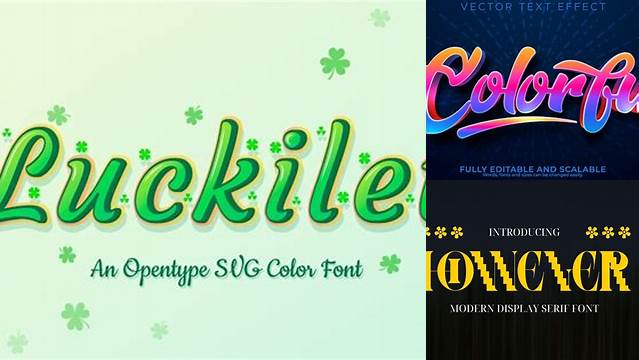
Download Free Fonts: Your Guide To Freepik Fonts
Looking to spice up your designs with some awesome fonts without breaking the bank? You've come to the right place! In this comprehensive guide, we'll dive deep into the world of Freepik fonts free download. We'll explore everything from where to find them, how to use them, and even some tips and tricks for making the most of your font collection. So, grab a coffee, settle in, and let's get started!
1. Understanding Freepik's Font Offerings
Freepik is a fantastic resource for designers, offering a wide range of graphics, vectors, and, of course, fonts! When we talk about Freepik fonts free download, it's important to understand the different licenses they offer. Generally, you'll find both free and premium options. Free fonts often come with certain restrictions, such as requiring attribution to Freepik. Premium fonts, on the other hand, usually offer more flexibility and commercial usage rights. To make sure you're using the fonts correctly, always double-check the license agreement before incorporating them into your projects. Understanding these distinctions is the first step towards making the most of Freepik's font library. So, always read the fine print, guys! Knowing the difference between free and premium can save you a lot of headaches down the road, especially if you're using the fonts for commercial projects. Happy designing!
2. How to Find Free Fonts on Freepik
Navigating the Freepik website to find those hidden gems of Freepik fonts free download can be a bit of an adventure! The easiest way to start is by using the search bar. Type in "free fonts" or specific font styles you're looking for, like "sans-serif free fonts" or "script free fonts." Once you've hit enter, you'll likely see a mix of free and premium results. To filter specifically for free options, look for a filter option, usually on the left-hand side of the page, that allows you to select "free" resources. This will narrow down your search and show you only the fonts available for free download. Also, keep an eye out for fonts that are part of Freepik's free bundles or promotions, as these can offer even more value. Don't forget to browse through different categories and tags, too! You might stumble upon some unexpected treasures that perfectly match your project. Remember to always check the license details before downloading to ensure it meets your needs. Finding the perfect Freepik fonts free download can take some time, but it's well worth the effort when you discover that ideal typeface that brings your design to life.
3. Types of Free Fonts Available on Freepik
When exploring Freepik fonts free download, you'll find a delightful assortment of font types to suit various design needs. From classic serif fonts that exude elegance and professionalism to modern sans-serif fonts that offer clean lines and readability, there's something for every project. Script fonts, with their flowing curves and handwritten feel, add a touch of personality and charm, perfect for invitations and branding. Display fonts, bold and eye-catching, are ideal for headlines and posters, grabbing attention with their unique designs. Geometric fonts, with their precise shapes and minimalist aesthetic, are great for creating a contemporary and structured look. Each font type brings its own distinct character and can significantly impact the overall message of your design. So, whether you're working on a website, logo, or marketing material, take the time to explore the diverse range of font types available on Freepik to find the perfect match for your creative vision. Remember, the right font can elevate your design from good to great!
7. Troubleshooting Font Installation Issues
Sometimes, even with the simplest processes, things can go a little wonky. If you're having trouble installing those Freepik fonts free download, don't panic! Let's troubleshoot some common issues. First, make sure the font file isn't corrupted. Try downloading it again from Freepik to ensure you have a complete file. If the font still won't install, try restarting your computer. This can often resolve minor glitches that might be preventing the installation. Another common problem is font cache issues. Your operating system stores font information in a cache, and sometimes this cache can become corrupted, leading to installation problems. On Windows, you can try clearing the font cache by deleting the contents of the C:\Windows\ServiceProfiles\LocalService\AppData\Local\FontCache folder (you might need to show hidden files and folders to access this). On macOS, you can use Font Book to resolve font conflicts and clear the font cache. Open Font Book, select "File" > "Restore Standard Fonts," and then restart your computer. If you're still having trouble, try installing the font using a different method. For example, on Windows, you can drag and drop the font file into the C:\Windows\Fonts folder. If all else fails, consult the font's documentation or contact Freepik's support team for assistance. Don't let a little technical hiccup stop you from enjoying your new fonts!
8. Best Practices for Using Freepik Fonts
So you've got your Freepik fonts free download all installed and ready to go. Awesome! But before you start slapping them on every design, let's chat about some best practices for using fonts effectively. First and foremost, readability is key. Choose fonts that are easy to read, especially for body text. Avoid overly decorative or complex fonts for large blocks of text, as they can strain the eyes. Consider the hierarchy of your text. Use different font sizes, weights, and styles to create a clear visual hierarchy that guides the reader through your content. Pair fonts carefully. Choose fonts that complement each other and create a harmonious visual balance. A good rule of thumb is to pair a serif font with a sans-serif font. Use fonts sparingly. Too many different fonts in a single design can look chaotic and unprofessional. Stick to a maximum of two or three fonts per project. Pay attention to kerning and tracking. Kerning is the spacing between individual letters, while tracking is the overall spacing between all the letters in a word or phrase. Adjust these settings to improve the readability and visual appeal of your text. Finally, always test your fonts on different devices and screen sizes to ensure they look good in all contexts. Following these best practices will help you create visually appealing and effective designs with your Freepik fonts.
9. Combining Freepik Fonts with Other Design Elements
Okay, you've got your Freepik fonts free download all set, and you're ready to rock. But how do you make sure those fonts play nicely with the other elements in your design? Well, let's dive into the art of combining fonts with other design elements! Think of your fonts as just one piece of the puzzle. They need to work in harmony with your colors, images, and overall layout to create a cohesive and visually appealing design. When choosing fonts, consider the mood and tone of your design. A playful design might call for a fun, quirky font, while a professional design might require a more clean and classic typeface. Pay attention to the contrast between your fonts and your background. Make sure your text is easily readable against the background color or image. Use color to highlight important text or create visual interest. Experiment with different color combinations to see what works best with your fonts. When incorporating images, choose fonts that complement the style and subject matter of the images. A vintage-inspired design might pair well with a retro-style font, while a modern design might call for a sleek, sans-serif font. Don't be afraid to experiment and try new things! The key is to find a balance between your fonts and other design elements that creates a visually pleasing and effective design. So, go ahead and unleash your creativity!
10. Free Font Alternatives to Freepik
While Freepik fonts free download are a great resource, it's always good to have options! So, let's explore some fantastic free font alternatives to Freepik. Google Fonts is a treasure trove of open-source fonts that are free for both personal and commercial use. With a vast library of fonts in various styles, Google Fonts is a go-to resource for designers. Font Squirrel is another excellent option, offering a curated collection of high-quality free fonts. Font Squirrel carefully vets each font to ensure its quality and usability. DaFont is a popular website with a massive collection of user-submitted fonts. While the quality of fonts on DaFont can vary, it's a great place to find unique and unusual typefaces. Behance and Dribbble are design communities where designers often share free fonts as part of their projects. Keep an eye out for these freebies, as they can be real gems. Creative Market offers a selection of free goods every week, including fonts. Sign up for their newsletter to stay updated on the latest freebies. Exploring these free font alternatives will give you even more options for enhancing your designs without breaking the bank. So, go ahead and expand your font library!
11. Serif Fonts on Freepik: Classic Choices
When you're browsing for Freepik fonts free download, don't overlook the timeless elegance of serif fonts. These fonts, characterized by their small decorative strokes (serifs) at the end of each letter, bring a touch of tradition and sophistication to any design. Think of classic book layouts or the logos of established brands – chances are, they're using a serif font. On Freepik, you'll find a variety of serif fonts to choose from, ranging from the traditional Times New Roman-esque styles to more modern and stylized options. Use them for headlines to command attention, or in body text to lend a sense of readability and trustworthiness. Some popular serif fonts include Garamond, with its graceful curves, and Didot, known for its high contrast and refined appearance. When pairing serif fonts with other fonts, consider using a sans-serif font for headings to create a visual contrast. Experiment with different font weights and sizes to create a clear visual hierarchy. Whether you're designing a book cover, a website, or a logo, serif fonts can add a touch of class and professionalism to your project.
12. Sans-Serif Fonts on Freepik: Modern and Clean
If you're after a more contemporary look, Freepik fonts free download also include a wide array of sans-serif fonts. These fonts, as the name suggests, lack the decorative serifs found on serif fonts, giving them a cleaner, more minimalist appearance. Sans-serif fonts are often associated with modernity, simplicity, and readability, making them a popular choice for website design, logos, and branding. On Freepik, you'll find sans-serif fonts in various styles, from the classic Helvetica and Arial to more modern and geometric options like Futura and Montserrat. Use sans-serif fonts for body text to ensure readability, or in headings to create a bold and impactful statement. When pairing sans-serif fonts with other fonts, consider using a serif font for body text to create a visual contrast. Experiment with different font weights and sizes to create a clear visual hierarchy. Whether you're designing a website, a logo, or a marketing campaign, sans-serif fonts can bring a sense of modernity and clarity to your project.
13. Script Fonts on Freepik: Elegant and Decorative
Looking to add a touch of personality and flair to your designs? Then you'll want to explore the script fonts available as Freepik fonts free download. These fonts mimic the flowing strokes of handwriting, bringing an elegant and decorative touch to any project. Script fonts are perfect for invitations, logos, and branding, adding a personal and intimate feel. On Freepik, you'll find a variety of script fonts to choose from, ranging from formal calligraphy styles to more casual and whimsical options. Use script fonts sparingly, as they can be difficult to read in large blocks of text. Instead, use them for headings, logos, or short phrases to add a touch of elegance and sophistication. When pairing script fonts with other fonts, consider using a simple sans-serif font for body text to create a visual contrast. Experiment with different colors and textures to enhance the handwritten feel of the font. Whether you're designing a wedding invitation, a logo for a boutique, or a social media graphic, script fonts can add a touch of charm and personality to your project.
14. Display Fonts on Freepik: Bold and Eye-Catching
Need to grab attention with your designs? Look no further than the display fonts available as Freepik fonts free download. These fonts are designed to be bold, eye-catching, and attention-grabbing, making them perfect for headlines, posters, and advertising. Display fonts often feature unique and unconventional designs, adding a touch of personality and creativity to your project. On Freepik, you'll find a wide variety of display fonts to choose from, ranging from vintage-inspired styles to futuristic and geometric options. Use display fonts sparingly, as they can be overwhelming in large blocks of text. Instead, use them for headings, logos, or short phrases to make a statement. When pairing display fonts with other fonts, consider using a simple sans-serif font for body text to create a visual contrast. Experiment with different colors and textures to enhance the impact of the font. Whether you're designing a movie poster, a website header, or a social media ad, display fonts can help you capture attention and make a lasting impression.
15. Geometric Fonts on Freepik: Modern and Structured
For a sleek, modern, and structured look, explore the geometric fonts available as Freepik fonts free download. These fonts are characterized by their precise shapes, clean lines, and minimalist aesthetic, making them ideal for contemporary designs. Geometric fonts are often associated with technology, innovation, and efficiency, making them a popular choice for startups, tech companies, and modern brands. On Freepik, you'll find a variety of geometric fonts to choose from, ranging from the classic Futura to more modern options like Montserrat and Avenir. Use geometric fonts for body text to ensure readability, or in headings to create a bold and impactful statement. When pairing geometric fonts with other fonts, consider using a serif font for body text to create a visual contrast. Experiment with different font weights and sizes to create a clear visual hierarchy. Whether you're designing a website, a logo, or a marketing campaign, geometric fonts can bring a sense of modernity and structure to your project.
16. Font Pairing Tips for Freepik Fonts
Mastering the art of font pairing can elevate your designs from good to great. When using Freepik fonts free download, here are some tips to help you create visually harmonious and effective designs. Start by understanding the basic principles of font pairing. A classic approach is to pair a serif font with a sans-serif font. This creates a visual contrast that is pleasing to the eye and helps to establish a clear hierarchy. Consider the mood and tone of your design. A playful design might call for a fun, quirky font paired with a simple sans-serif font, while a professional design might require a more classic serif font paired with a clean sans-serif font. Use font weights and sizes to create a visual hierarchy. Make your headings larger and bolder than your body text to draw attention to the most important information. Don't be afraid to experiment, but stick to a maximum of two or three fonts per project. Too many different fonts can make your design look chaotic and unprofessional. Use online font pairing tools and resources to get inspiration and ideas. These tools can help you discover font combinations that you might not have considered otherwise. Finally, always test your font pairings on different devices and screen sizes to ensure they look good in all contexts. By following these tips, you can create visually appealing and effective designs with your Freepik fonts.
17. Creating a Font Library with Freepik Downloads
Building a solid font library is essential for any designer. With Freepik fonts free download, you can easily create a diverse and valuable collection of typefaces to use in your projects. Start by browsing Freepik's extensive font selection and downloading the fonts that catch your eye. Organize your fonts into folders based on style, type, or project. This will make it easier to find the right font when you need it. Use a font management tool to preview and manage your fonts. These tools allow you to easily activate and deactivate fonts, view font samples, and organize your fonts into collections. Consider creating a font style guide for your brand or business. This will help you maintain consistency in your designs and ensure that you're using fonts that align with your brand identity. Regularly update your font library with new and interesting fonts. This will keep your designs fresh and modern and give you more options to choose from. Don't be afraid to experiment with different fonts and font combinations. The more you experiment, the better you'll become at choosing the right font for the right project. By following these tips, you can create a font library with Freepik downloads that will serve you well for years to come.
18. Using Freepik for Font Inspiration
Feeling stuck in a design rut? Freepik fonts free download can be a great source of inspiration for your next project. Browse Freepik's font selection to discover new and interesting typefaces that you might not have considered otherwise. Pay attention to the trends in font design. What fonts are popular right now? What fonts are being used in successful designs? Look at how other designers are using fonts in their projects. How are they pairing fonts? How are they using fonts to create visual hierarchy? Experiment with different font combinations and styles. Don't be afraid to try something new. Use online font pairing tools and resources to get inspiration and ideas. These tools can help you discover font combinations that you might not have considered otherwise. Create mood boards with fonts that you like. This can help you visualize how the fonts will look in your designs. Don't just look at the fonts themselves. Look at the overall design context in which the fonts are being used. How do the fonts work with the colors, images, and layout of the design? By following these tips, you can use Freepik to find font inspiration and take your designs to the next level.
19. Font Bundles on Freepik: Maximizing Value
Want to get the most bang for your buck? Check out the font bundles available on Freepik. These bundles offer a collection of related fonts at a discounted price, making them a great way to expand your font library without breaking the bank. Keep an eye out for Freepik fonts free download that are included in font bundles. This is a great way to get even more value for your money. Consider the theme or style of the font bundle. Does it align with your design needs? Does it include fonts that you'll actually use? Read the license agreements carefully before purchasing a font bundle. Make sure you understand the terms of use for each font in the bundle. Compare the price of the font bundle to the price of buying the fonts individually. Is it really a good deal? Check the reviews of the font bundle to see what other designers are saying about it. Are they happy with the quality of the fonts? Make sure the font bundle includes a variety of font weights and styles. This will give you more flexibility in your designs. By following these tips, you can maximize the value of font bundles on Freepik and expand your font library without spending a fortune.
20. Free Font Alternatives within Freepik
Did you know that even within Freepik, you can find alternatives for your font needs without necessarily downloading external fonts? One of the best ways is to utilize Freepik's design templates. Often, these templates include well-chosen font pairings that you can adapt for your own projects. Analyze the fonts used in these templates and search for similar Freepik fonts free download. This can lead you to discover new fonts that you might not have found otherwise. Also, explore Freepik's mockups. Mockups often showcase fonts in real-world scenarios, giving you a better idea of how they might look in your designs. Pay attention to the font styles used in Freepik's promotional materials. Freepik often highlights its best fonts in its ads and social media posts. Check out Freepik's blog for articles and tutorials on font design and typography. These resources can provide valuable insights and inspiration for your font choices. Use Freepik's search filters to narrow down your font search. You can filter by font type, style, and license. Don't be afraid to experiment with different font combinations and styles. The more you experiment, the better you'll become at choosing the right font for the right project. By exploring these free font alternatives within Freepik, you can save time and effort while still finding the perfect fonts for your designs.
21. Mobile Font Usage from Freepik
Designing on the go? You can even leverage Freepik fonts free download for your mobile projects! While you can't directly install fonts onto most mobile apps like you would on a desktop, there are still ways to incorporate Freepik's font styles into your mobile designs. First, design your text elements on your computer using your downloaded Freepik fonts. Then, export those text elements as images (PNG with transparency works great!) and import them into your mobile design app. Some advanced mobile design apps also allow you to import custom fonts, so be sure to check if your app supports this feature. Another option is to use web-based design tools that allow you to access your installed fonts from any device. Create your designs online and then download them for use on your mobile devices. When choosing fonts for mobile designs, consider readability on smaller screens. Simple, clean fonts often work best. Also, pay attention to font size and contrast to ensure your text is easily legible. Remember to optimize your images for mobile devices to reduce file size and improve loading times. By following these tips, you can effectively use Freepik fonts in your mobile designs, even without direct font installation.
22. Font Weight and Style Considerations
When working with Freepik fonts free download, it's crucial to pay attention to font weight and style. Font weight refers to the thickness of the font, ranging from thin to black. Font style refers to variations such as italic, bold, or condensed. Using different font weights and styles can help you create a visual hierarchy and emphasize important information in your designs. For example, you might use a bold font weight for headings to make them stand out from the body text. Or, you might use an italic font style to emphasize a particular word or phrase. When choosing font weights and styles, consider the overall tone and style of your design. A professional design might call for more subtle font weights and styles, while a playful design might benefit from bolder and more dramatic choices. Be consistent with your use of font weights and styles throughout your design. This will help to create a cohesive and professional look. Don't overdo it with too many different font weights and styles. This can make your design look cluttered and confusing. Use font weights and styles to create a visual rhythm in your design. This can help to guide the reader's eye through the content. By carefully considering font weight and style, you can enhance the visual impact of your Freepik fonts and create more effective designs.
23. Kerning and Tracking Adjustments for Better Typography
To achieve truly professional-looking typography with your Freepik fonts free download, don't underestimate the power of kerning and tracking adjustments. Kerning refers to the spacing between individual letters, while tracking refers to the overall spacing between all the letters in a word or phrase. Adjusting kerning and tracking can significantly improve the readability and visual appeal of your text. In some fonts, the default kerning may not be ideal, leading to awkward gaps or uneven spacing between letters. By manually adjusting the kerning, you can create a more balanced and harmonious appearance. Tracking is particularly useful for adjusting the overall density of text. Tightening the tracking can make text look more compact and dense, while loosening the tracking can make it look more airy and spacious. When adjusting kerning and tracking, zoom in closely on your text to see the individual letter spacing. Make small, incremental adjustments until you achieve the desired effect. Be consistent with your kerning and tracking adjustments throughout your design. This will help to create a polished and professional look. Don't overdo it with extreme kerning or tracking adjustments. This can make your text look unnatural and difficult to read. Use kerning and tracking adjustments to fine-tune your typography and create a more visually appealing and readable design.
24. Color Psychology in Font Selection
Believe it or not, the color of your fonts can have a profound impact on how your message is perceived. When using Freepik fonts free download, think about the psychology of color and how it relates to your brand or design. Red, for example, often evokes feelings of excitement, passion, or urgency, while blue is often associated with trust, stability, and calmness. Green can represent nature, growth, or health, while yellow can signify happiness, optimism, or energy. Consider your target audience and the message you want to convey when choosing font colors. A playful design for children might benefit from bright, vibrant colors, while a professional design for a financial institution might require more muted and conservative tones. Pay attention to the contrast between your font color and your background color. Make sure your text is easily readable against the background. Use color to highlight important text or create visual interest. Experiment with different color combinations to see what works best with your fonts. Don't be afraid to use color strategically to enhance the emotional impact of your designs. By understanding the psychology of color, you can make more informed decisions about font color and create more effective designs.
25. Free Font Management Tools
Managing a large collection of Freepik fonts free download can quickly become overwhelming. That's where font management tools come in handy! These tools help you organize, preview, and activate/deactivate fonts with ease. Here are a few popular free font management tools to consider: FontBase is a free, fast, and reliable font manager for Windows, macOS, and Linux. It allows you to organize your fonts into collections, preview fonts with custom text, and activate/deactivate fonts with a single click. NexusFont is a free font manager for Windows that offers a variety of features, including font organization, preview, and comparison. It also supports font tagging and filtering. Google Fonts is not just a font library; it also provides a web-based font manager that allows you to create font collections and preview fonts in different styles and sizes. FontViewOK is a lightweight and portable font viewer for Windows that allows you to quickly preview fonts and view font details. These free font management tools can help you keep your font library organized and make it easier to find the perfect font for your next design project. Give them a try and see which one works best for you!
26. Avoiding Common Font Mistakes
Even with a great selection of Freepik fonts free download, it's easy to make common font mistakes that can detract from your designs. Here are some pitfalls to avoid: Using too many fonts: Stick to a maximum of two or three fonts per project to avoid a cluttered and unprofessional look. Choosing unreadable fonts: Prioritize readability, especially for body text. Avoid overly decorative or complex fonts that can strain the eyes. Ignoring font hierarchy: Use different font sizes, weights, and styles to create a clear visual hierarchy that guides the reader through your content. Poor font pairing: Choose fonts that complement each other and create a harmonious visual balance. Avoid clashing fonts that create visual dissonance. Neglecting kerning and tracking: Pay attention to the spacing between letters and words to ensure readability and visual appeal. Inconsistent font usage: Be consistent with your font choices throughout your design. Avoid switching fonts unnecessarily. Using fonts that are inappropriate for the context: Choose fonts that align with the overall tone and style of your design. Avoid using fonts that are too formal or informal for the intended audience. By avoiding these common font mistakes, you can create more professional and effective designs.
27. Font Copyright and Legal Considerations
Before you start using those Freepik fonts free download in your projects, it's essential to understand the legal considerations surrounding font usage. Fonts are intellectual property and are protected by copyright law. This means that you need to have the right to use a font before you can incorporate it into your designs. Always read the license agreement that comes with each font. The license agreement will specify how you can use the font, including whether you can use it for commercial purposes, modify it, or redistribute it. Pay attention to the attribution requirements. Some free fonts require you to give credit to the font designer or website where you downloaded the font. Be careful when using fonts that you found on the internet. Make sure the fonts are licensed for commercial use and that you're not violating any copyright laws. If you're unsure about the licensing terms of a font, it's best to contact the font designer or website where you downloaded the font for clarification. Using fonts without the proper license can lead to legal trouble, so it's always better to err on the side of caution. By understanding font copyright and legal considerations, you can protect yourself and your business from potential legal issues.
28. The Future of Font Design
Font design is constantly evolving, and there are some exciting trends on the horizon. As you explore Freepik fonts free download, it's worth considering where font design might be heading. Variable fonts are gaining popularity. These fonts allow you to adjust various parameters, such as weight, width, and slant, giving you more control over the appearance of your text. AI-powered font design tools are emerging. These tools can help you generate new fonts automatically or customize existing fonts to suit your specific needs. More and more fonts are being designed specifically for use on screens. These fonts are optimized for readability on different devices and screen sizes. The use of color in fonts is becoming more prevalent. This allows designers to create more expressive and visually appealing typography. Fonts are becoming more interactive and animated. This opens up new possibilities for creating dynamic and engaging user experiences. As technology continues to evolve, we can expect to see even more innovation in font design. By staying up-to-date on the latest trends, you can ensure that your designs are always fresh and modern.
29. Finding Font Inspiration Beyond Freepik
While Freepik fonts free download offer a great starting point, expanding your search for font inspiration can lead to even more exciting discoveries! Don't limit yourself to just one source. Explore websites like Behance, Dribbble, and Awwwards to see how other designers are using fonts in their projects. Follow font designers and typography enthusiasts on social media to stay up-to-date on the latest trends. Attend design conferences and workshops to learn from experts in the field. Read books and articles on typography and font design. Experiment with different font combinations and styles in your own projects. Create mood boards to visualize how different fonts will look in your designs. Pay attention to the fonts used in everyday life, such as in magazines, newspapers, and websites. By expanding your search for font inspiration beyond Freepik, you can discover new and exciting typefaces and develop your own unique style.
30. Contributing to the Freepik Font Community
If you're a font designer, consider contributing your own creations to the Freepik font community. This is a great way to share your work with a wider audience and get feedback from other designers. Before you submit your fonts, make sure they are high-quality and well-designed. Pay attention to kerning, tracking, and readability. Create a clear and concise license agreement that specifies how others can use your fonts. Include a sample of your font in use so that others can see how it looks in a real-world design. Promote your fonts on social media and other online platforms. Respond to feedback from other designers and users. By contributing to the Freepik font community, you can help to create a valuable resource for designers around the world.